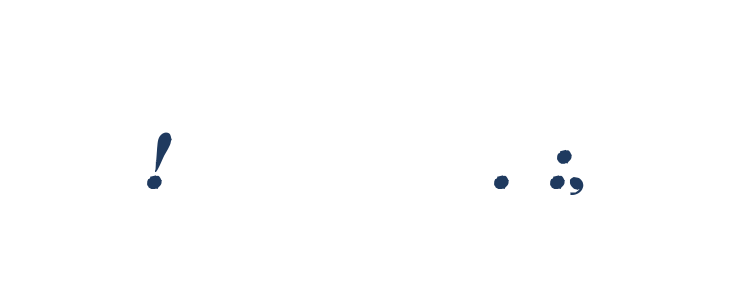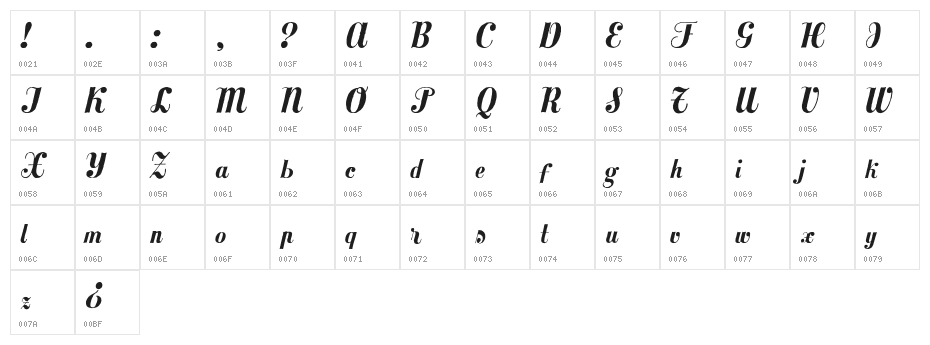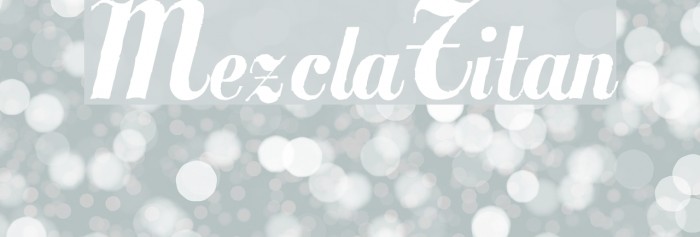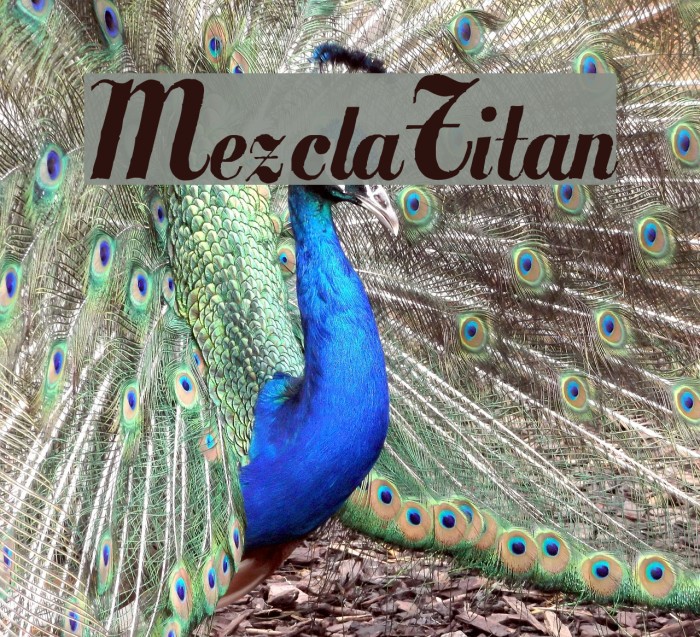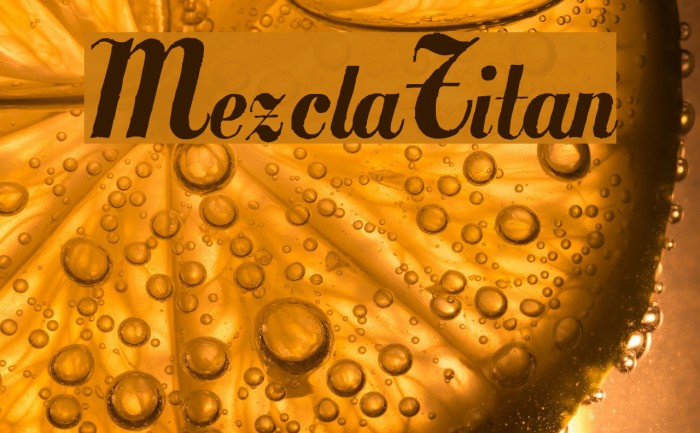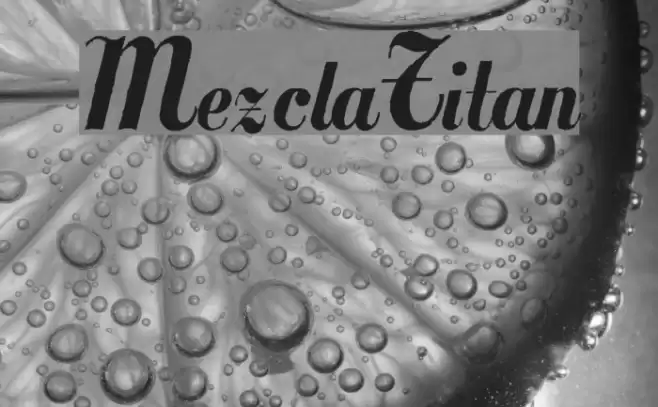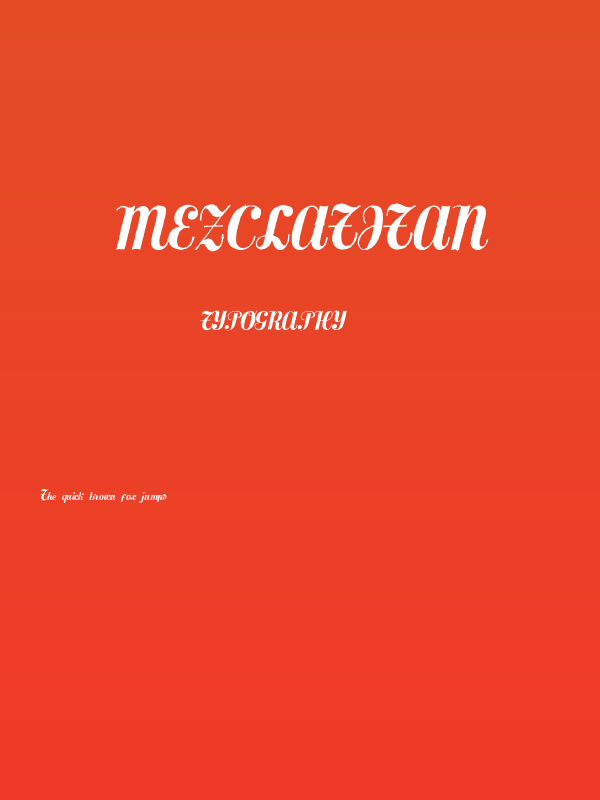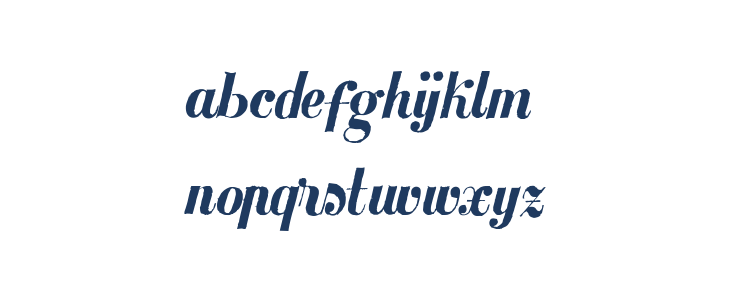
MezclaTitan Font
MezclaTitan Description
This font features a bold and elegant script style with a high contrast between thick and thin strokes. The uppercase letters are ornate, with sweeping curves and flourishes that give a sense of movement and sophistication. The lowercase letters maintain a similar style, with a slightly more restrained design that ensures readability. The overall appearance is both classic and decorative, making it suitable for formal and creative applications. The special characters, such as the exclamation mark and period, are designed to complement the letterforms, maintaining the same level of elegance and style.